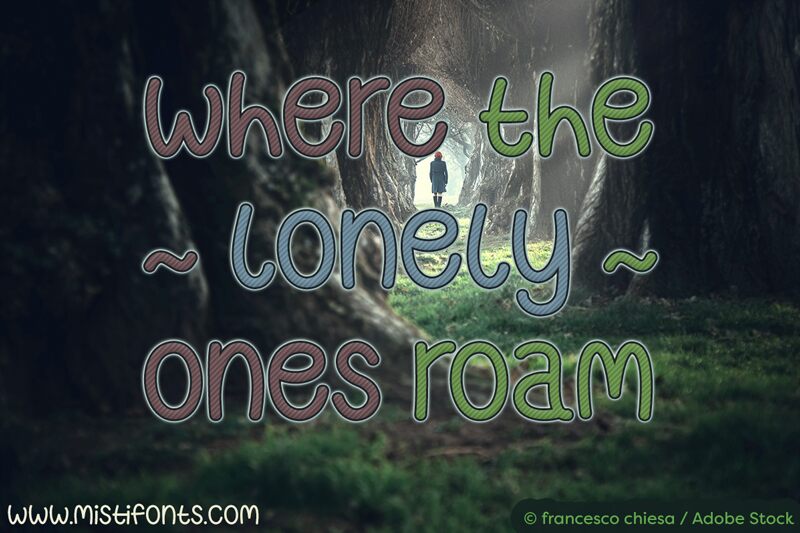
Where the Lonely Ones Roam by Misti Hammers of Misti's Fonts is a free handwritten font with tall, narrow letters and an easy, unhurried flow. Rounded turns, changing stroke widths, and gently uneven shapes give the writing the warmth of a personal note.
Its approachable style suits independent makers and small lifestyle brands. It can soften stationery, cafe packaging, and event posters. In branding, the long curves can become a recognizable signature for handmade goods or intimate venues.